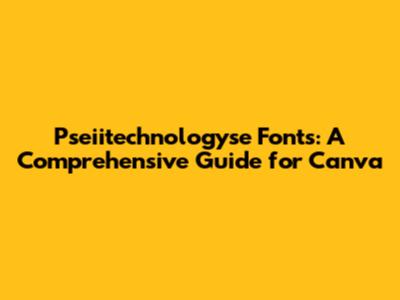
- Montserrat: A classic sans-serif with a clean, modern feel.
- Oswald: Another great sans-serif, slightly condensed, giving it a techy vibe.
- Rajdhani: A bolder option, perfect for headlines and titles.
- Bebas Neue: Tall and sleek, ideal for making a statement.
- Poppins: A versatile font with a geometric touch.
- Pairing: Don't go overboard with too many techy fonts. Pair a Pseiitechnologyse font with a more neutral, readable font for body text.
- Hierarchy: Use different font sizes and weights to create a clear visual hierarchy. Make your headlines pop!
- Color: Experiment with colors that complement the tech vibe. Think blues, greens, and grays.
- Spacing: Pay attention to letter spacing and line height. Give your text room to breathe.
- Tech Startup Presentation: Using Oswald for the headlines and Open Sans for the body, with a blue and white color scheme.
- Gaming YouTube Thumbnail: Featuring Rajdhani in bold red for the title, with a blurred, futuristic background.
- Modern Blog Post: Employing Montserrat throughout, with generous spacing and minimalist design.
Hey guys! Ever wondered how to make your Canva designs pop with that sleek, modern vibe? Well, you're in the right place! Today, we're diving deep into the world of Pseiitechnologyse fonts and how you can use them to level up your Canva game. Let's get started!
What are Pseiitechnologyse Fonts?
When we talk about Pseiitechnologyse fonts, we're generally referring to a style of typography that embodies a futuristic, technological, and often minimalist aesthetic. These fonts often feature clean lines, geometric shapes, and a sense of innovation. Think of the fonts you might see in the logo of a tech startup or the interface of a cutting-edge gadget. That's the vibe we're going for! These fonts are designed to convey sophistication, modernity, and a forward-thinking attitude. They often incorporate elements that make them stand out, such as broken letterforms, sharp angles, or a monospaced structure reminiscent of coding interfaces. Using Pseiitechnologyse fonts can instantly give your designs a sense of being current and relevant. This style is perfect for projects related to technology, science, gaming, or anything that wants to project an image of innovation and progress. For example, a tech company might use this font style for its branding to communicate that it is at the forefront of technology and design. Similarly, a video game developer might use it for in-game text or promotional materials to create a futuristic feel. The key is to choose a font that not only looks cool but also aligns with the overall message and tone of your project. When selecting a Pseiitechnologyse font, consider factors such as readability, versatility, and how well it pairs with other design elements. A font might look stunning on its own, but if it's difficult to read or doesn't complement the rest of your design, it might not be the best choice. Also, think about the specific context in which the font will be used. Will it be used for headlines, body text, or both? Different fonts are better suited for different purposes, so it's essential to choose wisely. By carefully considering these factors, you can effectively leverage the power of Pseiitechnologyse fonts to enhance your designs and make a lasting impression.
Why Use Pseiitechnologyse Fonts in Canva?
So, why should you even bother with Pseiitechnologyse fonts in Canva? Well, the right font can make or break your design. These fonts bring a unique edge, especially if you're aiming for a modern, tech-savvy look. They can instantly elevate your social media graphics, presentations, and marketing materials. Using Pseiitechnologyse fonts in Canva can significantly enhance the visual appeal and effectiveness of your designs for several reasons. First and foremost, these fonts communicate a sense of modernity and innovation. In today's fast-paced world, where technology is constantly evolving, using a font that reflects this progress can help your designs stand out and capture attention. Whether you're creating graphics for a tech startup, designing a presentation on the latest scientific breakthroughs, or developing marketing materials for a cutting-edge product, Pseiitechnologyse fonts can add a touch of sophistication and relevance. Another key benefit is their ability to convey a specific mood or atmosphere. Many of these fonts have a clean, minimalist aesthetic that can create a sense of calm and order, while others feature bold, futuristic elements that evoke excitement and energy. By carefully selecting the right font, you can subtly influence the viewer's perception of your message and create a stronger emotional connection. Furthermore, Pseiitechnologyse fonts can help you establish a consistent brand identity. In a crowded marketplace, it's essential to differentiate yourself from the competition and create a memorable brand image. By using a unique and distinctive font, you can make your designs instantly recognizable and reinforce your brand's personality. This is particularly important for businesses and organizations that want to be seen as innovative, forward-thinking, and technologically advanced. Additionally, Canva makes it incredibly easy to experiment with different fonts and see how they look in your designs. With its user-friendly interface and vast library of fonts, you can quickly try out various options and find the perfect one for your project. Whether you're a professional designer or a beginner, Canva provides the tools and resources you need to create stunning visuals that capture attention and communicate your message effectively. So, if you're looking to add a touch of modernity, innovation, and sophistication to your Canva designs, be sure to explore the world of Pseiitechnologyse fonts and discover the perfect one for your needs.
Finding Pseiitechnologyse Fonts in Canva
Okay, so how do you actually find these fonts in Canva? Here's the lowdown. Canva has a huge font library, but sifting through it can be a pain. The easiest way is to use the search bar. Type in keywords like "technology," "modern," "futuristic," or "cyberpunk" to narrow down your options. You can also try searching for specific font styles like "geometric" or "sans-serif," as these often align with the Pseiitechnologyse aesthetic. When searching for Pseiitechnologyse fonts in Canva, there are several strategies you can use to efficiently find the perfect font for your project. First, start by using specific keywords related to the style you're looking for. In addition to "technology," "modern," and "futuristic," try keywords like "sci-fi," "digital," "industrial," and "minimalist." These terms can help you narrow down the vast font library and find fonts that align with the Pseiitechnologyse aesthetic. Another helpful tip is to explore Canva's font categories. Canva organizes its fonts into various categories, such as sans-serif, serif, display, and handwriting. Since Pseiitechnologyse fonts often fall into the sans-serif or display categories, focus your search within these sections. Sans-serif fonts are known for their clean lines and simple shapes, which are characteristic of modern and technological designs. Display fonts, on the other hand, are designed to be eye-catching and attention-grabbing, making them ideal for headlines and titles. In addition to searching by keywords and categories, you can also filter your search results based on specific criteria, such as font weight, style, and popularity. For example, if you're looking for a bold and impactful font, you can filter your search to show only fonts with a heavy weight. If you want a font that's widely used and well-regarded, you can sort your search results by popularity. Another useful feature in Canva is the ability to preview fonts in your design before you commit to using them. This allows you to see how the font looks with your specific text and layout, ensuring that it complements the overall design. To preview a font, simply select the text you want to change, click on the font dropdown menu, and then hover over the different font options. Canva will automatically update the text in your design to show you how it looks with each font. Finally, don't be afraid to experiment and try out different fonts until you find the perfect one for your project. Canva offers a wide variety of fonts, so take the time to explore and discover new options. You might be surprised at what you find! By using these strategies, you can efficiently search for Pseiitechnologyse fonts in Canva and find the perfect font to elevate your designs.
Popular Pseiitechnologyse Fonts in Canva
Alright, let's talk specifics. Here are a few popular Pseiitechnologyse fonts you can find in Canva that might just be what you're looking for:
When it comes to selecting Pseiitechnologyse fonts in Canva, it's helpful to have a few popular options in mind to streamline your design process. Each of the fonts listed above offers a unique take on the technological aesthetic, making them suitable for a variety of projects. Montserrat, for example, is a versatile sans-serif font that exudes a clean and modern feel. Its simple, geometric shapes make it easy to read and visually appealing, making it a great choice for both headlines and body text. Oswald, another popular sans-serif option, has a slightly condensed design that gives it a techy and sophisticated vibe. Its narrower proportions make it ideal for designs where space is limited, such as website headers or social media graphics. Rajdhani, on the other hand, is a bolder font that commands attention. Its strong, assertive letterforms make it perfect for headlines and titles, especially when you want to make a statement or grab the viewer's attention. Bebas Neue is a tall and sleek font that stands out with its elongated letterforms and clean lines. Its modern and minimalist design makes it a great choice for creating a sense of sophistication and innovation. Poppins is a versatile font that combines geometric shapes with a touch of playfulness. Its rounded letterforms and balanced proportions make it easy to read and visually appealing, making it suitable for a wide range of design applications. In addition to these popular options, there are many other Pseiitechnologyse fonts available in Canva that you can explore. Some other notable fonts include Roboto, Lato, Open Sans, and Ubuntu. Each of these fonts has its own unique characteristics and strengths, so it's worth experimenting with different options to see which one works best for your project. When choosing a Pseiitechnologyse font, consider factors such as readability, versatility, and how well it complements the other design elements in your project. A font might look visually appealing on its own, but it's important to ensure that it's easy to read and doesn't clash with the overall design. By carefully considering these factors, you can select a font that enhances your designs and effectively communicates your message.
How to Use Pseiitechnologyse Fonts Effectively
Okay, you've found your font. Now what? Here are some tips to use Pseiitechnologyse fonts effectively:
To maximize the impact of Pseiitechnologyse fonts, it's essential to use them strategically and thoughtfully in your designs. Effective use of these fonts involves careful consideration of factors such as pairing, hierarchy, color, and spacing. Font pairing is a crucial aspect of design that can significantly impact the overall look and feel of your project. When using a Pseiitechnologyse font, it's often best to pair it with a more neutral and readable font for body text. This helps to create a balance between the eye-catching technological aesthetic and the need for clear and legible content. For example, you might pair a bold and futuristic headline font with a simple sans-serif font like Open Sans or Lato for the body text. This ensures that the headline grabs attention while the body text remains easy to read and understand. Creating a clear visual hierarchy is another essential aspect of effective font usage. Use different font sizes, weights, and styles to guide the viewer's eye and emphasize important information. For example, you might use a larger and bolder font for headlines and subheadings, and a smaller and lighter font for body text. You can also use different font styles, such as italics or boldface, to highlight key words or phrases. By creating a clear visual hierarchy, you can make your designs more organized and easier to navigate. Color plays a crucial role in creating the desired mood and atmosphere in your designs. When using Pseiitechnologyse fonts, experiment with colors that complement the tech vibe. Think blues, greens, and grays, as these colors are often associated with technology and innovation. You can also use accent colors to add a pop of visual interest and draw attention to specific elements in your design. However, be careful not to use too many colors, as this can make your design look cluttered and overwhelming. Pay close attention to letter spacing and line height to ensure that your text is easy to read and visually appealing. Give your text room to breathe by increasing the letter spacing and line height. This can make your text look more open and inviting, and it can also improve readability. However, be careful not to overdo it, as too much spacing can make your text look disjointed and difficult to follow. By considering these factors, you can effectively use Pseiitechnologyse fonts to create stunning and impactful designs that capture attention and communicate your message clearly.
Examples of Great Pseiitechnologyse Font Usage in Canva
Need some inspiration? Check out these examples of how others have rocked the Pseiitechnologyse font style in Canva:
To further illustrate the effective use of Pseiitechnologyse fonts in Canva, let's delve into some specific examples of how designers have successfully incorporated these fonts into their projects. These examples will provide inspiration and practical guidance for incorporating Pseiitechnologyse fonts into your own designs.
Consider a tech startup presentation designed to impress potential investors. In this scenario, the designer might choose to use Oswald for the headlines, leveraging its slightly condensed and techy vibe to convey a sense of innovation and sophistication. To ensure readability and maintain a professional look, they would pair Oswald with Open Sans for the body text, creating a balance between visual appeal and clarity. The color scheme would likely consist of blues and whites, which are often associated with technology and trust. By combining these elements, the designer can create a presentation that is both visually stunning and informative, effectively capturing the attention of the audience.